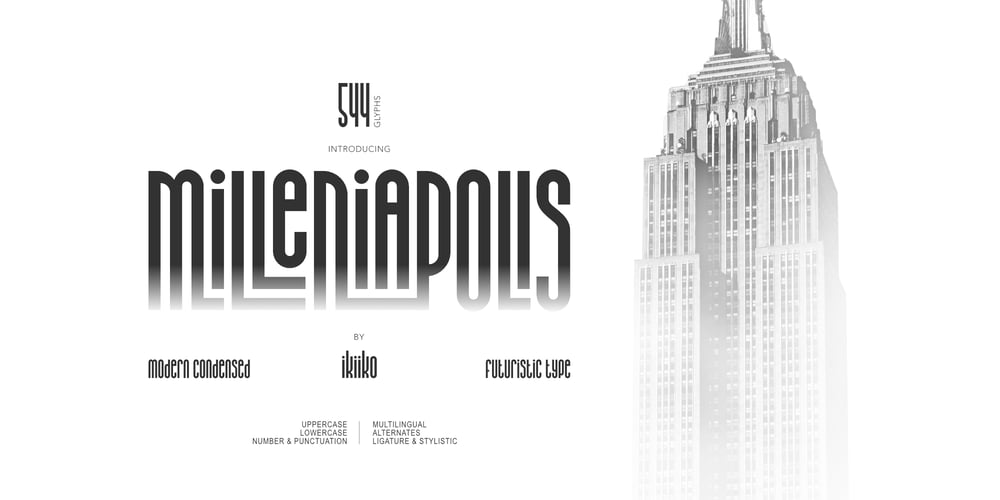
Milleniapolis Font Family was designed by Andhika Pradana and published by IKIIKOWRK. Milleniapolis contains 1 styles and family package options. Introducing Milleniapolis – Futuristic Type, created by ikiiko.Milleniapolis is a condensed type with a simple and playable font. Thin and tall font characters make it easy to adjust and fun to explore different shapes and layouts. This typeface is perfect for an brand logo, fashion stuff, clean design, magazine cover, poster & flyer, or simply as a stylish text overlay to any background image.What’s included? Uppercase & Lowercase Number & Punctuation Alternates & Stylistic Ligature Multilingual Support Get also a good offer & FREEBIE at our site : www.ikiiko.comEnjoy our font and if you have any questions, you can contact us by email : ikiikowrk@gmail.com